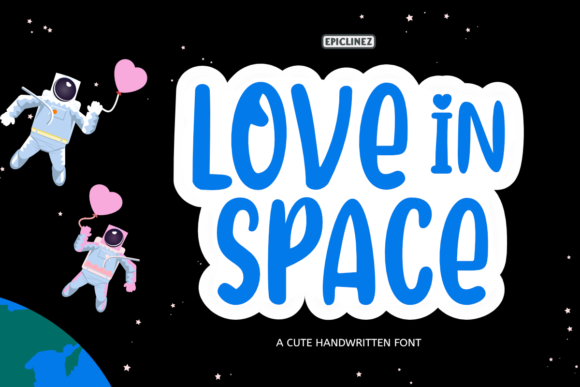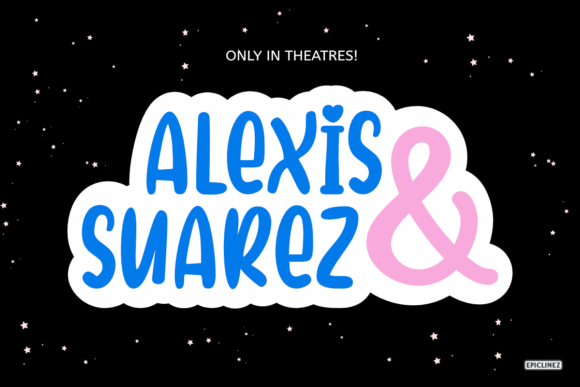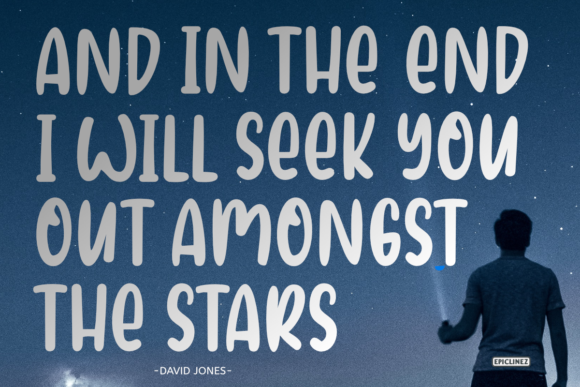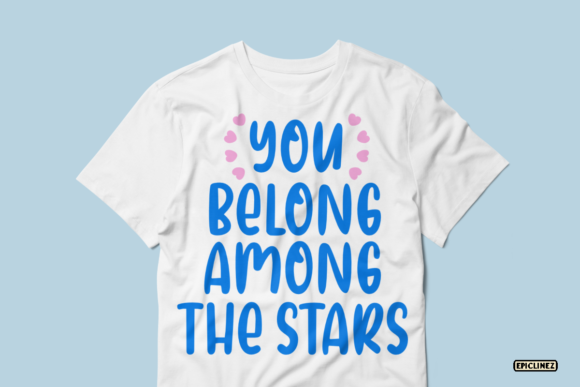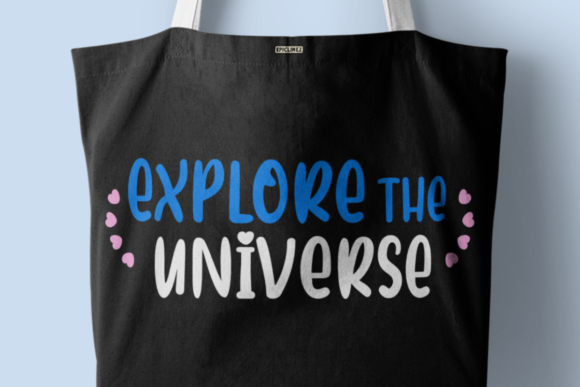
Love in Space Font
About Love in Space Font
Love In Space is a cute and lovable handwritten font. It is suitable for your crafting projects, but also for logos, quotes and so much more.